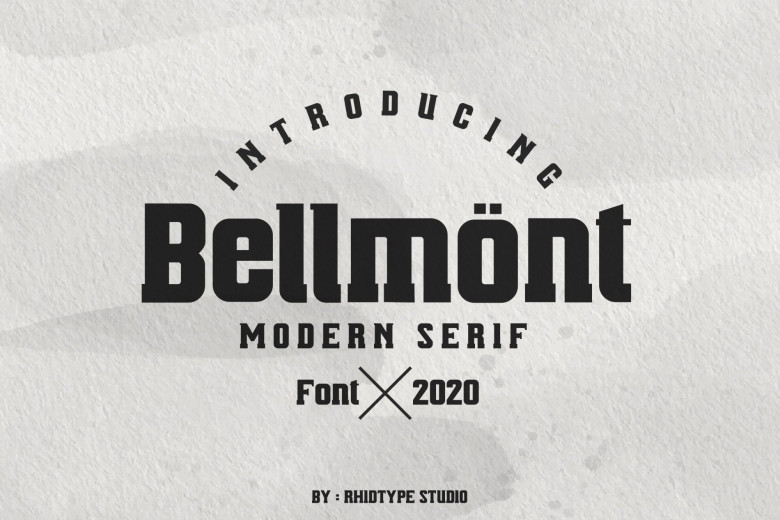
Bellmönt Modern Serif Typeface
Bellmönt Serif Typeface is a contemporary and versatile slab serif with strong serifs that give it a playful look while preserving the overall geometric structure of the font. This makes it versatile for use in many different project types.